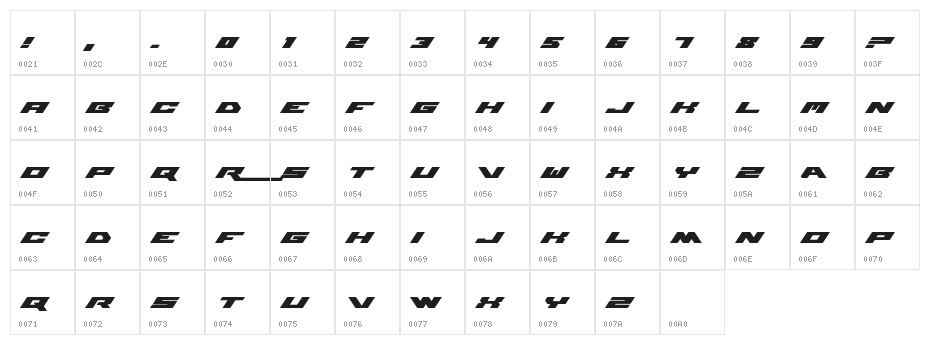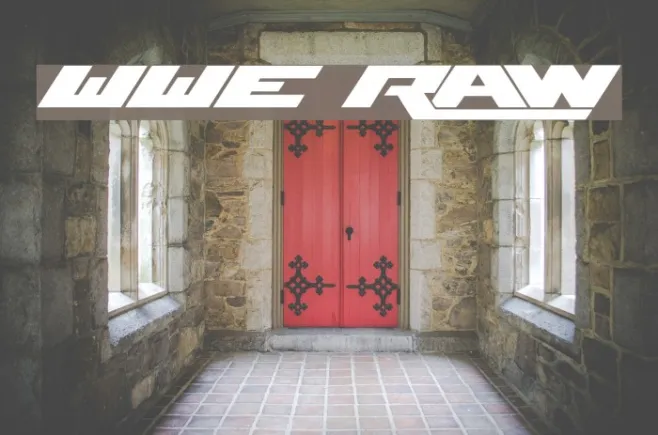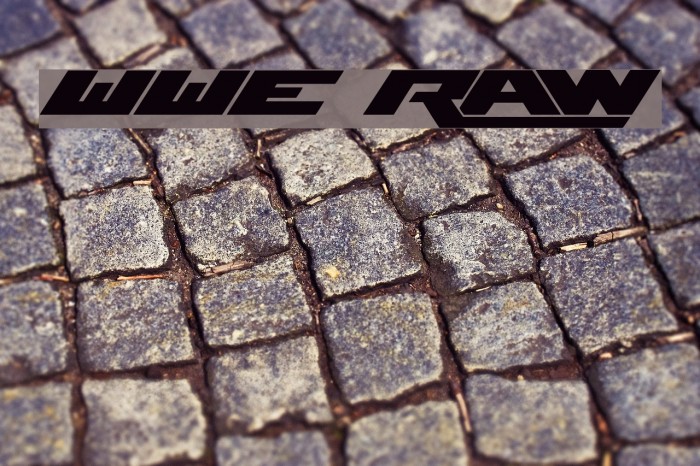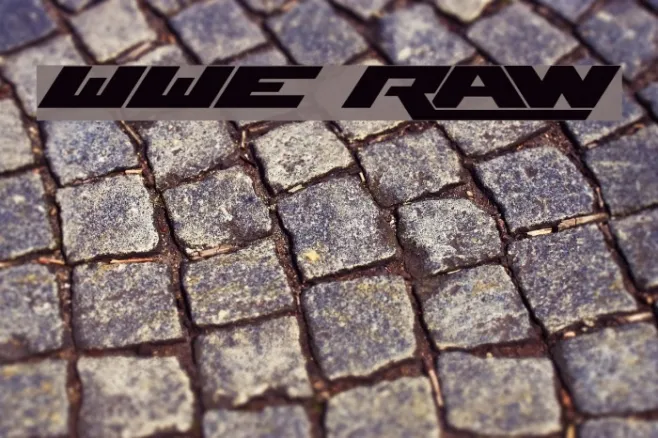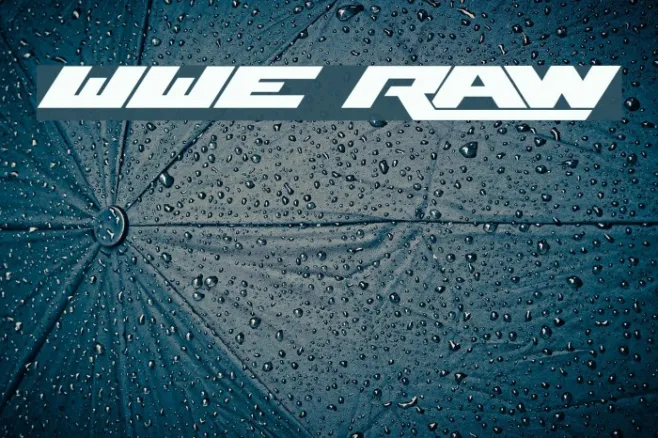
WWE Raw Font
WWE Raw Description
This font features a bold, angular design with a futuristic and aggressive aesthetic. The characters are sharply defined with a slanted orientation, giving a sense of motion and speed. The uppercase letters are particularly striking, with strong geometric forms and a consistent weight throughout. The numbers and special characters maintain the same boldness and angular style, ensuring a cohesive look across all glyphs. This font's unique style makes it stand out, perfect for projects that require a dynamic and impactful visual presence.
| Proposed Projects | Ideal for sports branding, action-themed posters, video game titles, and dynamic logos. |